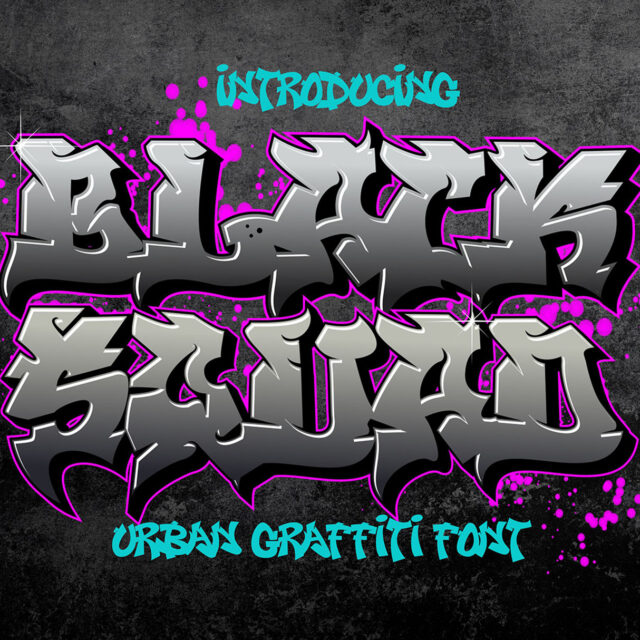
About Black Squad
“Black Squad” is an urban graffiti font characterized by sharp edges and a bold look. Ideal for music posters, apparel designs, shirts, and streetwear, this font brings a touch of edginess to your projects. The unique style of “Black Squad” makes it the perfect choice for death metal or urban graffiti themes. Whether you want to create a strong and powerful statement or simply add a touch of attitude to your designs, “Black Squad” is the font for you.